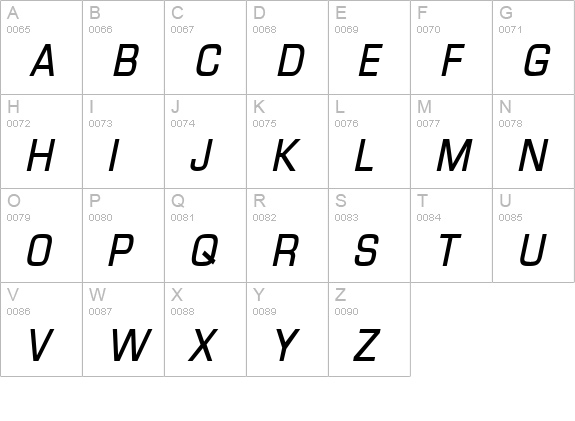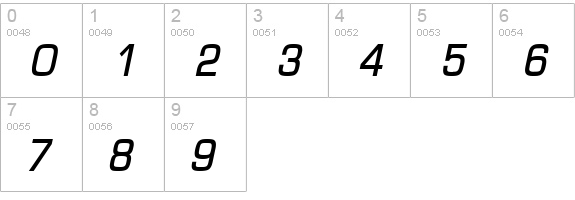
Eurasia BoldItalic is a striking and versatile font that exudes elegance and sophistication. Its bold yet graceful italic style adds a touch of modernity to any design project. Perfect for headlines, logos, and branding materials, this font commands attention and leaves a lasting impression. And the best part? Eurasia BoldItalic is available for free download at FontsMarket.com, making it accessible to everyone looking to elevate their typography game without breaking the bank. Embrace the boldness and creativity of Eurasia BoldItalic in your next project and watch it come to life with style and flair.